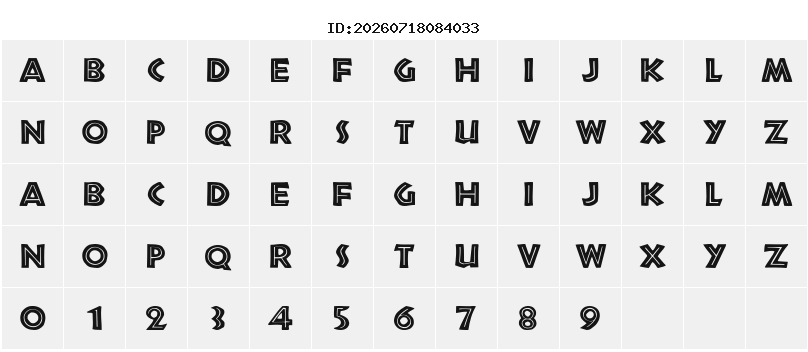
• Font Name: Chandle
• Full Font Name: Chandle
• PostScript Name: Chandle
About Chandle.ttf
Chandle.ttf is a modern, elegant sans-serif font designed for ultimate readability and visual harmony. Perfect for branding, headlines, web design, and print materials.